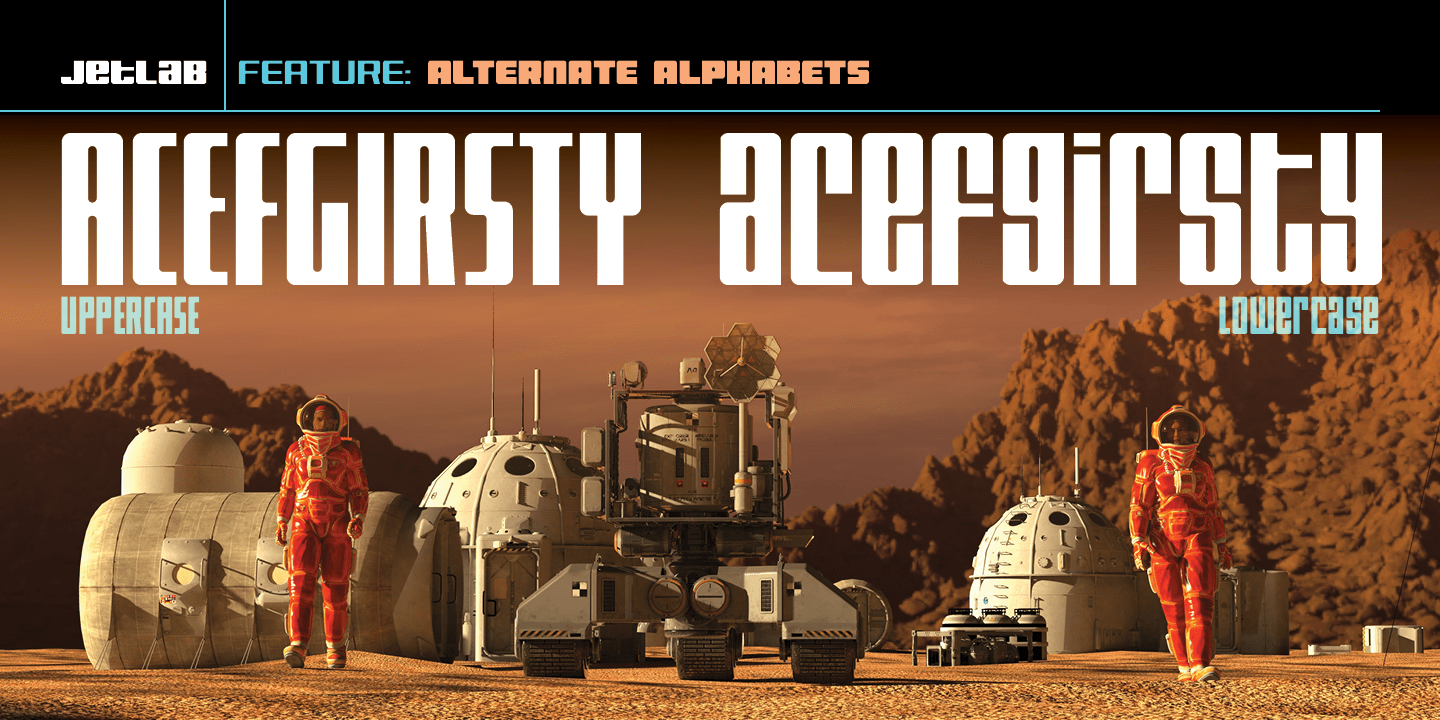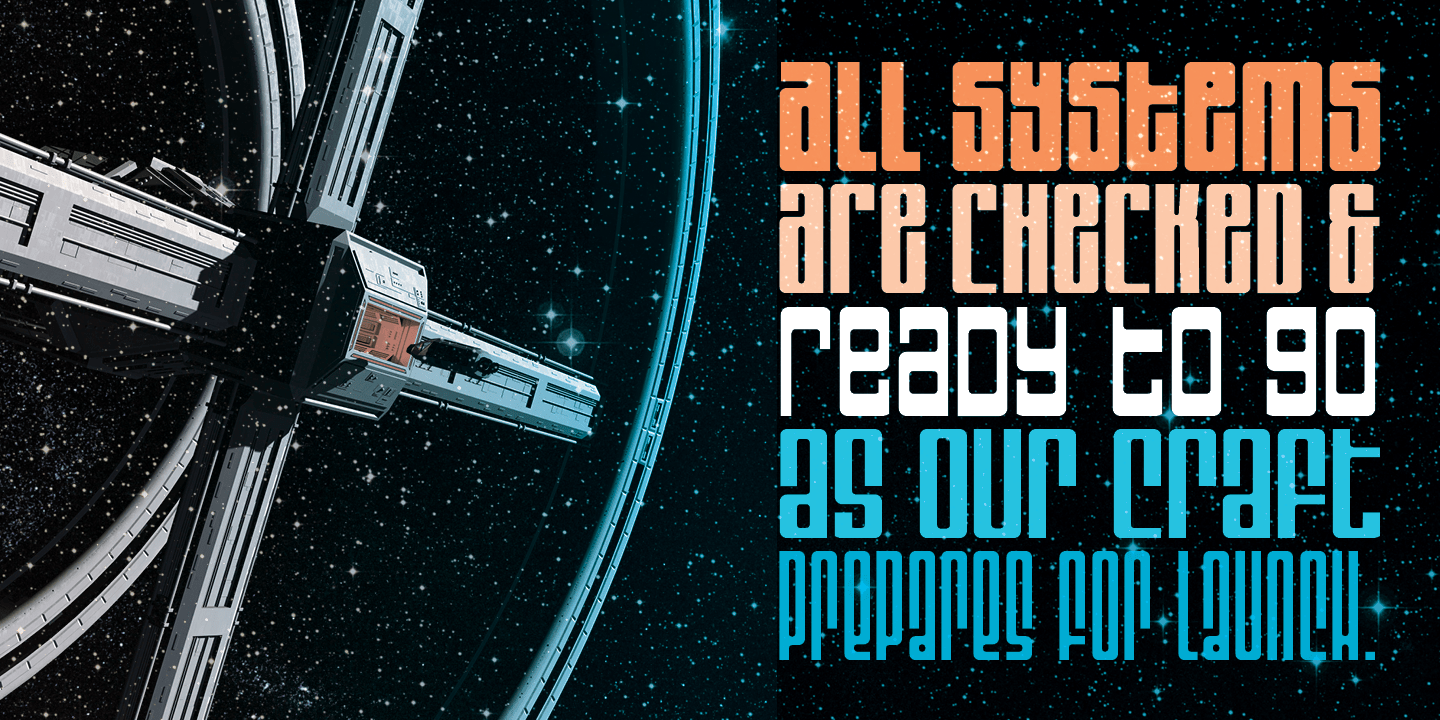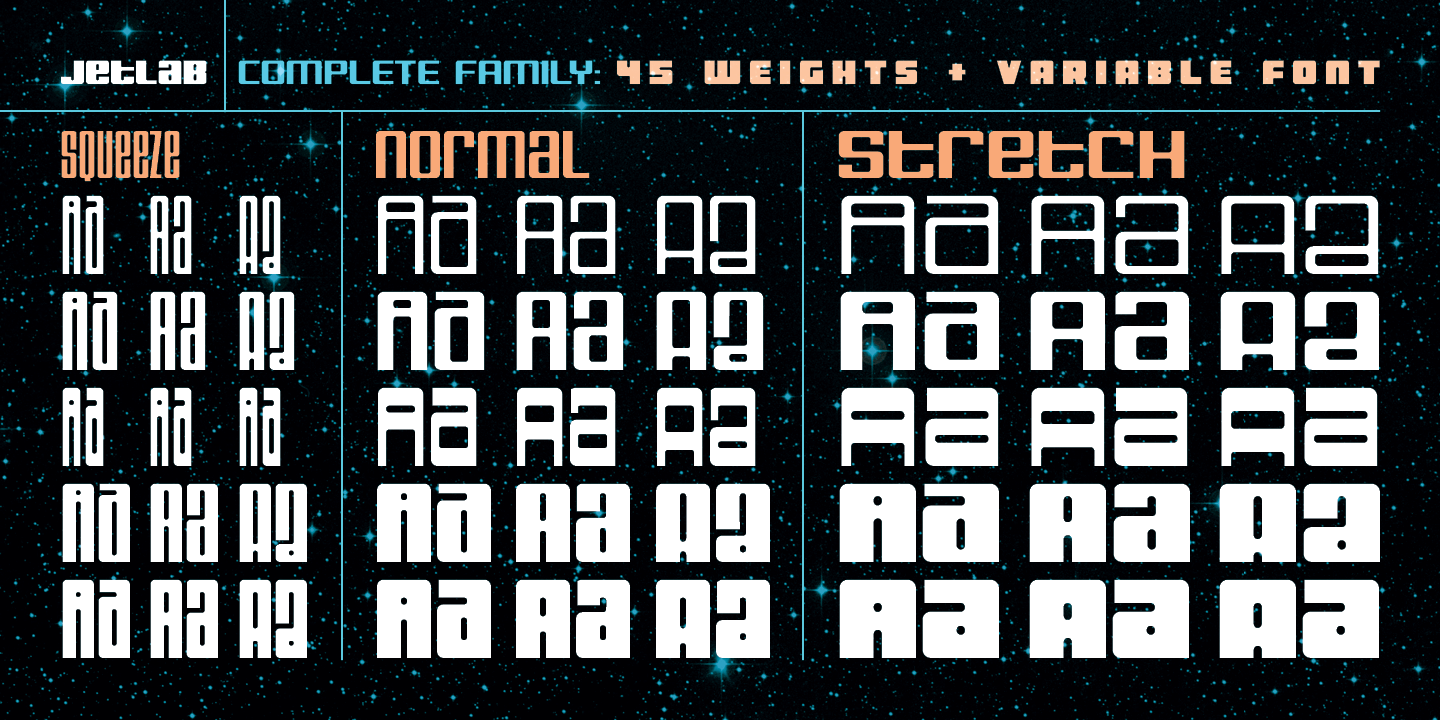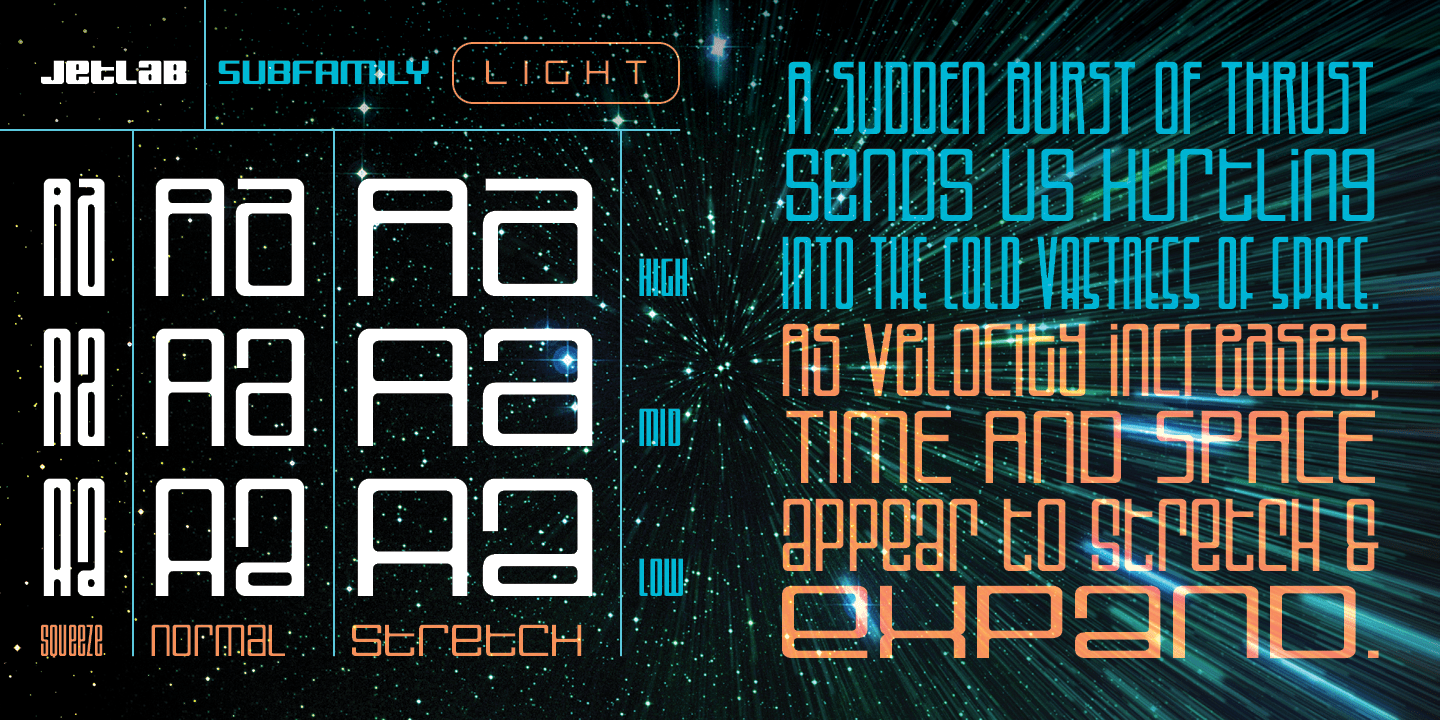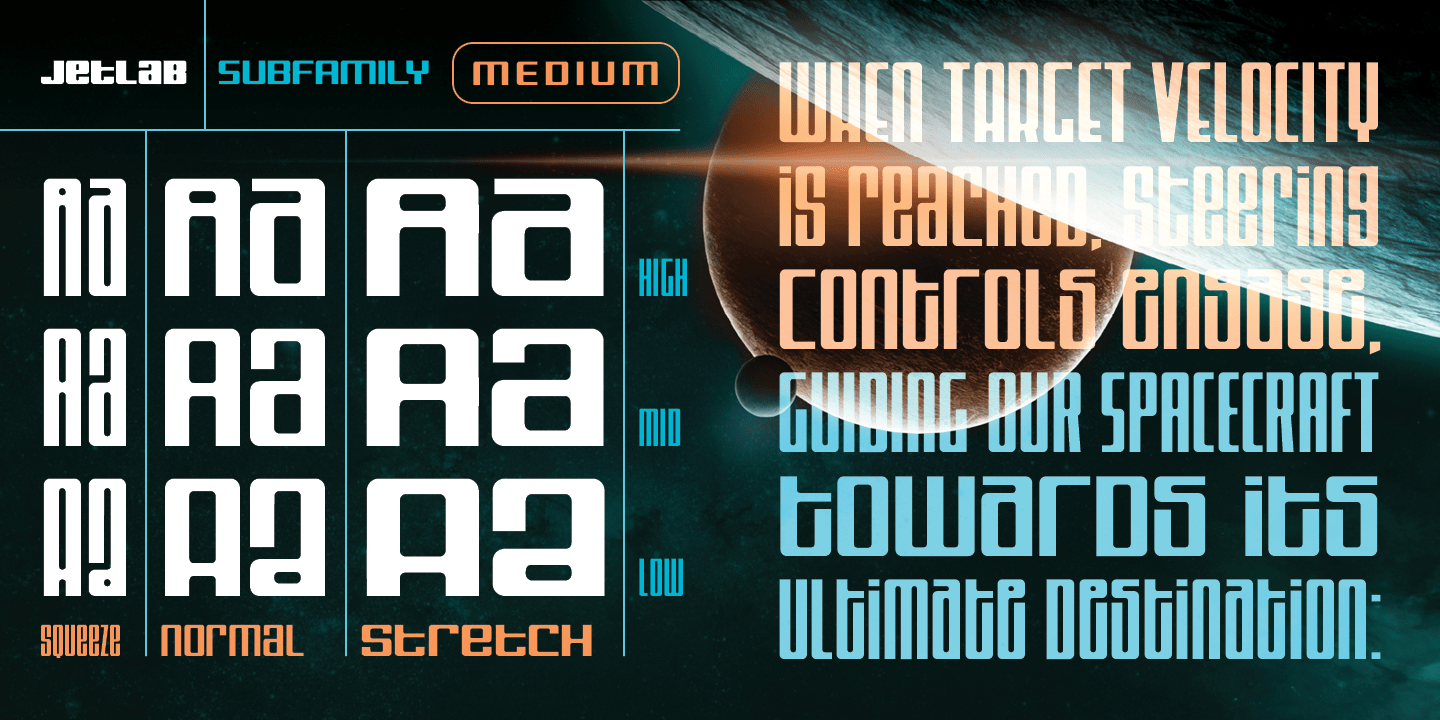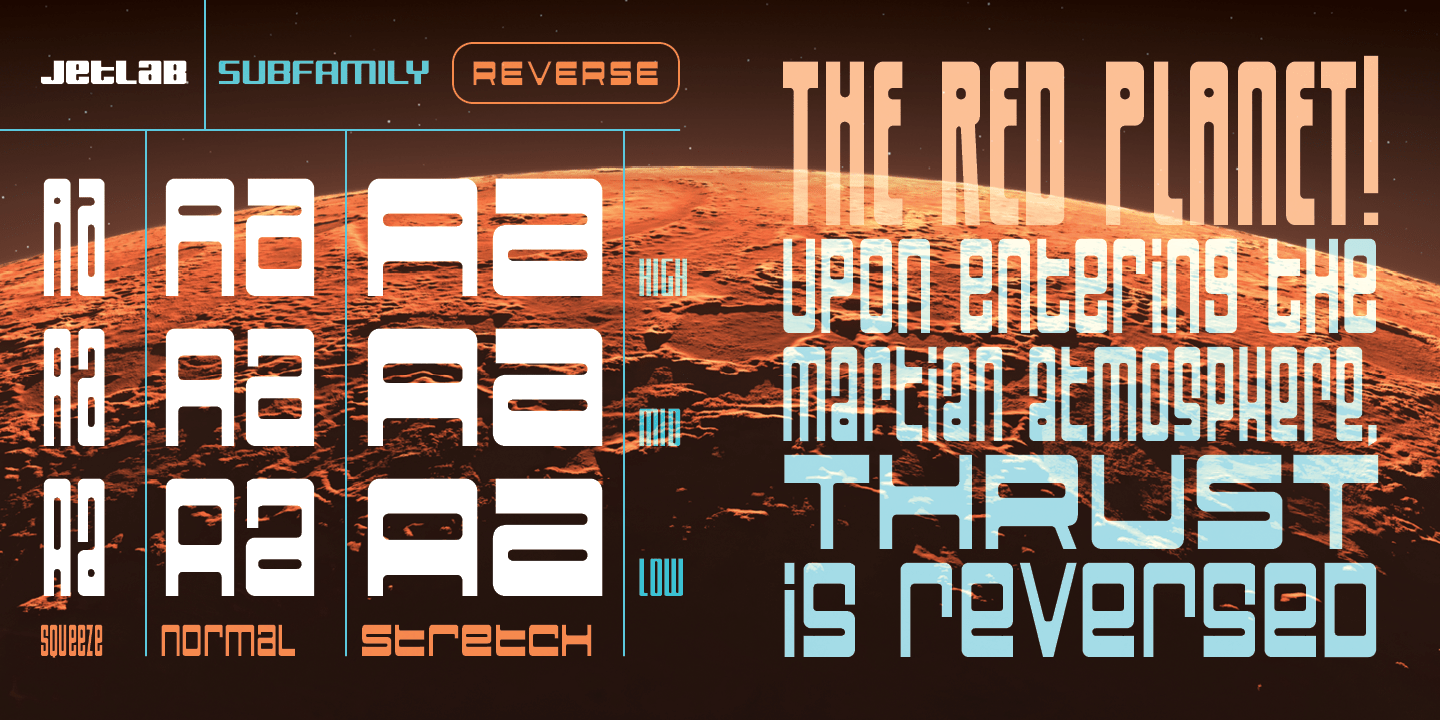
Jetlab is a typographic time machine that drops you squarely into the techno-futuristic optimism of the 1960s, 1970s and 1980s! While certain weights may conjure familiar space race-era logos from the sci-fi movies, board games, sports teams, new wave…